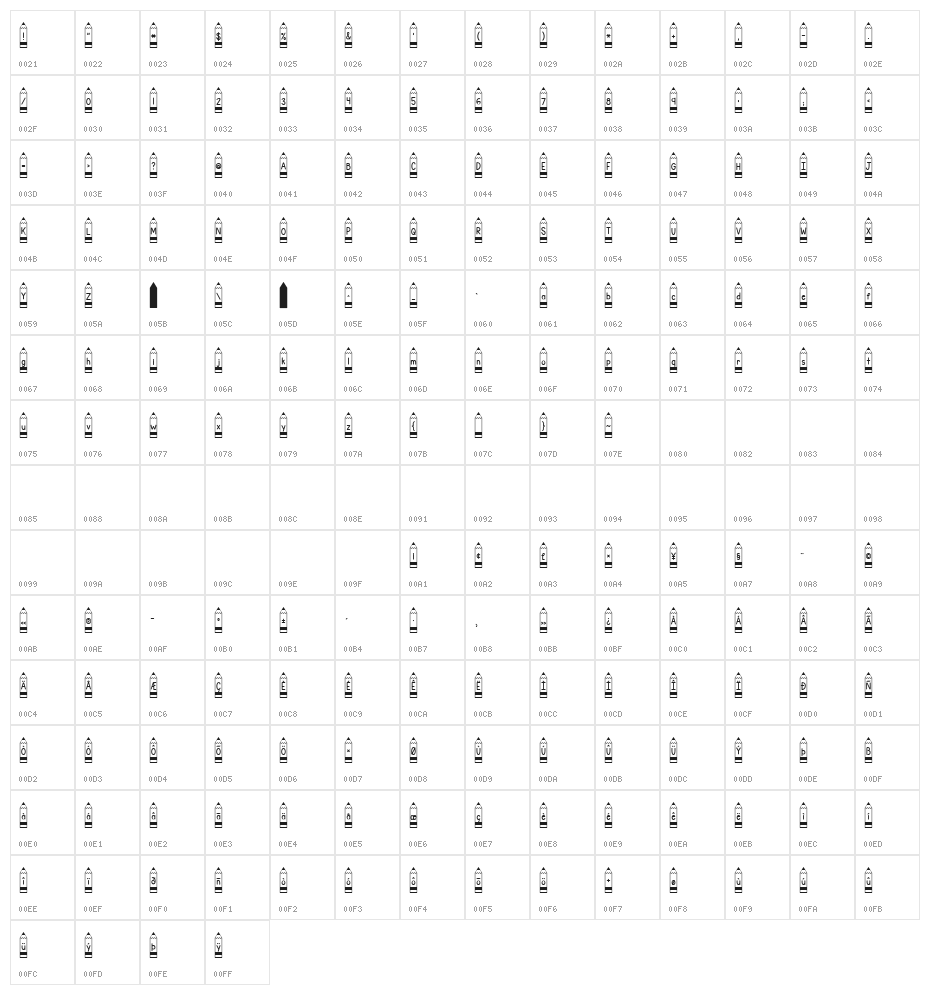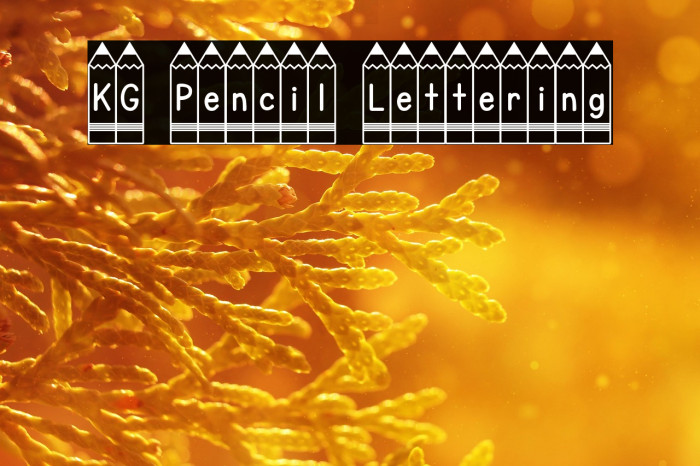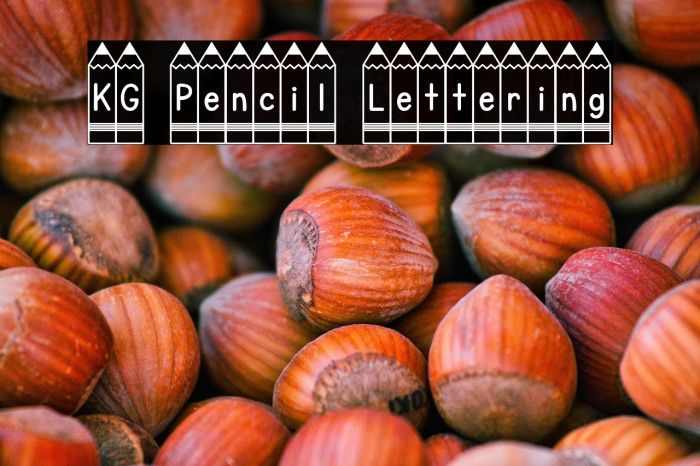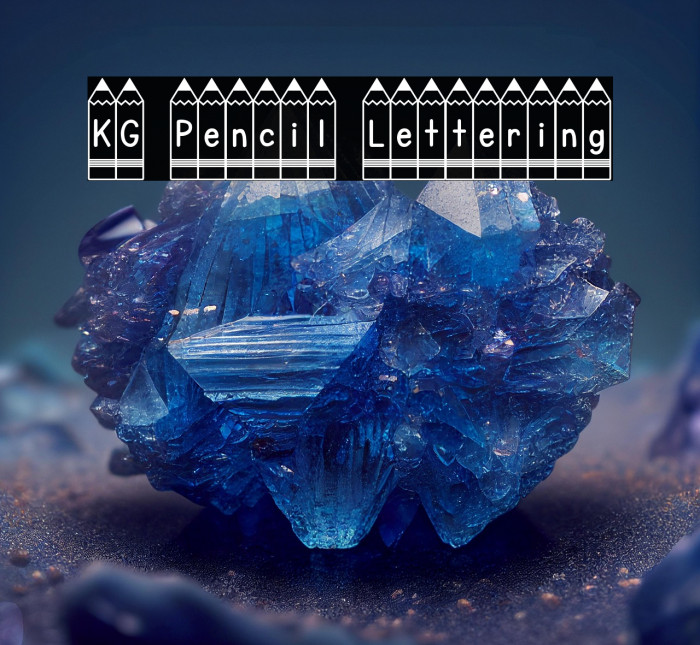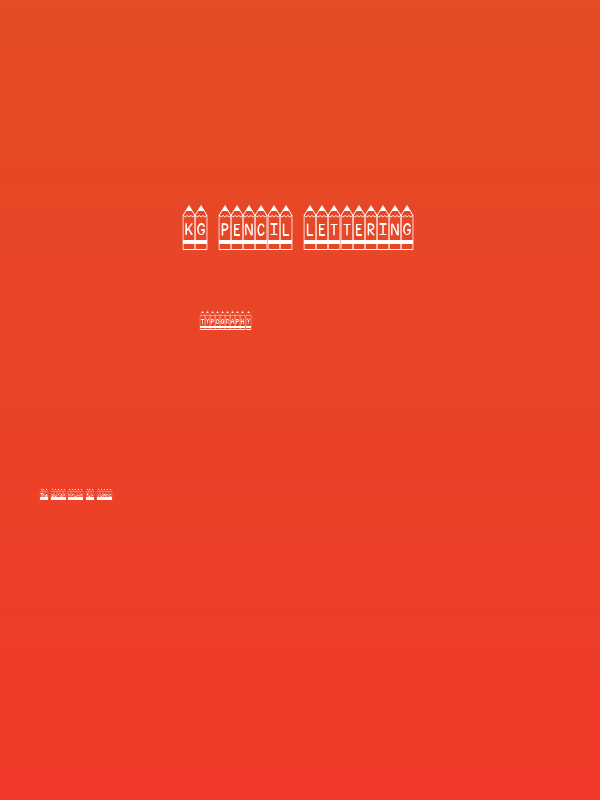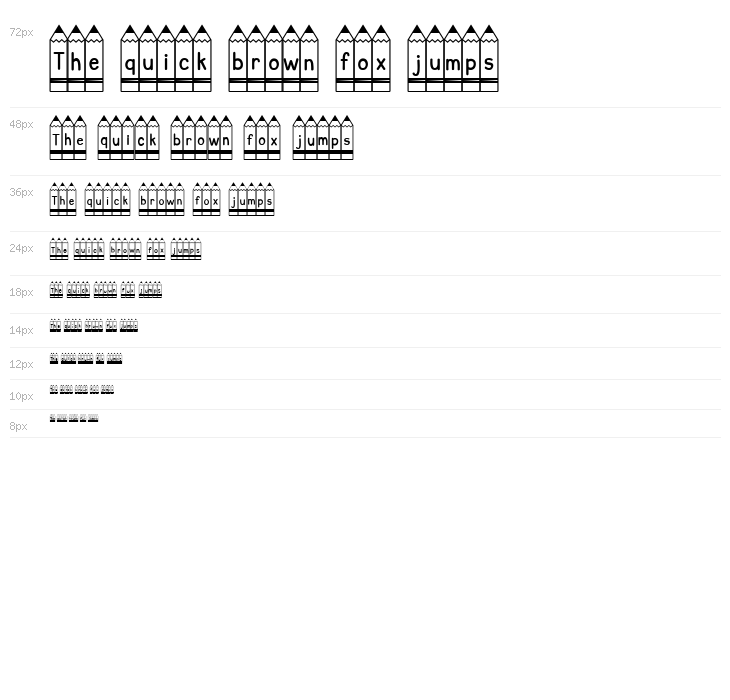
KG Pencil Lettering Font
KG Pencil Lettering Description
This playful and creative font is designed to resemble letters drawn on the surface of pencils, giving it a unique and educational appearance. Each character is encased in a pencil shape, complete with a pointed top and eraser bottom, making it ideal for school-related projects or children's materials. The letters are clear and legible, with a consistent stroke width that ensures readability. The font includes both uppercase and lowercase letters, numbers, and a variety of special characters, all maintaining the pencil motif. Its whimsical style is perfect for adding a touch of fun and creativity to any design.
| Overall Style | Playful, Educational |
| Use Case | Headlines, Posters, Educational Materials |
| Proposed Projects | Ideal for educational materials, children's books, school posters, and creative invitations. |